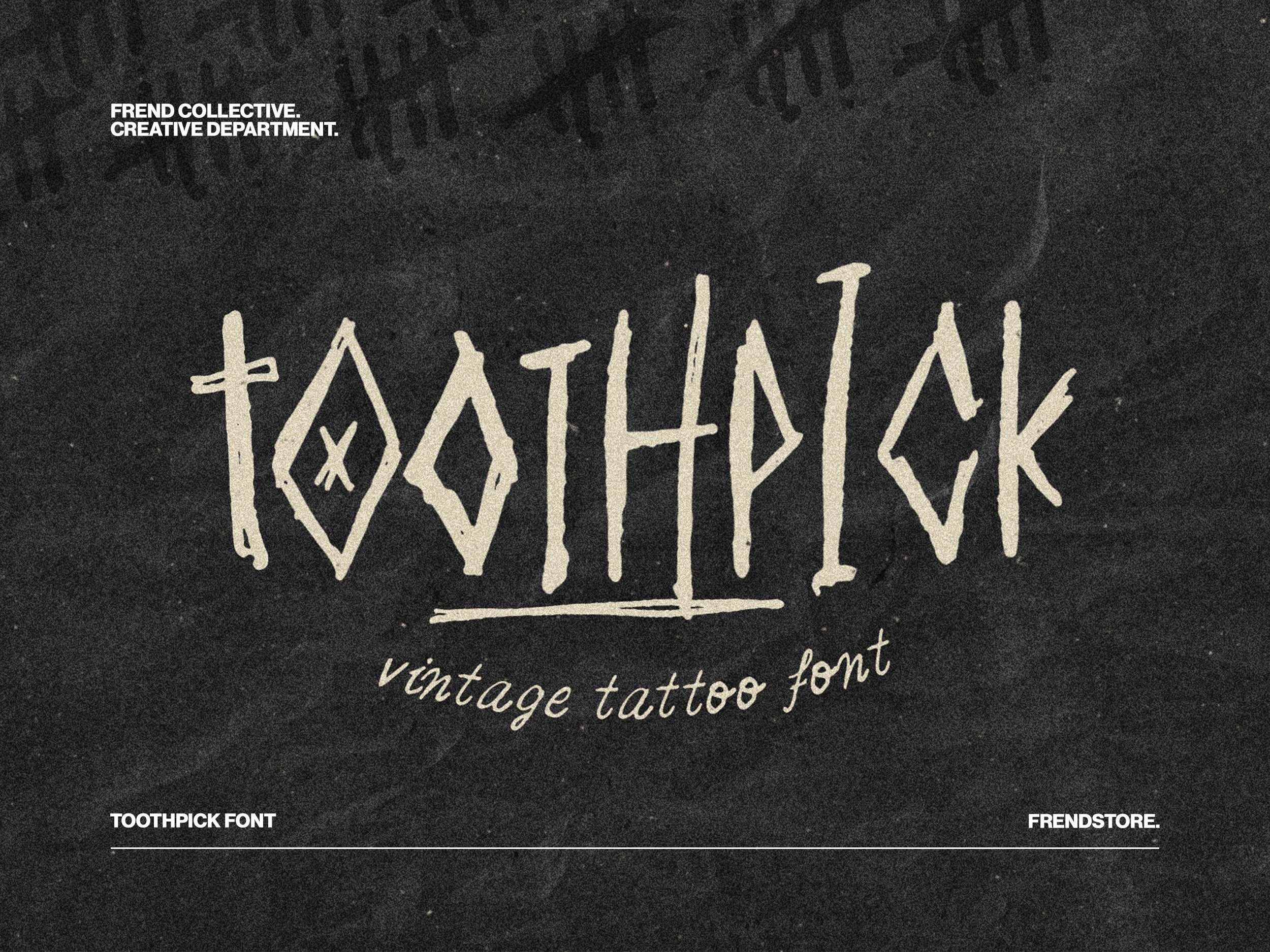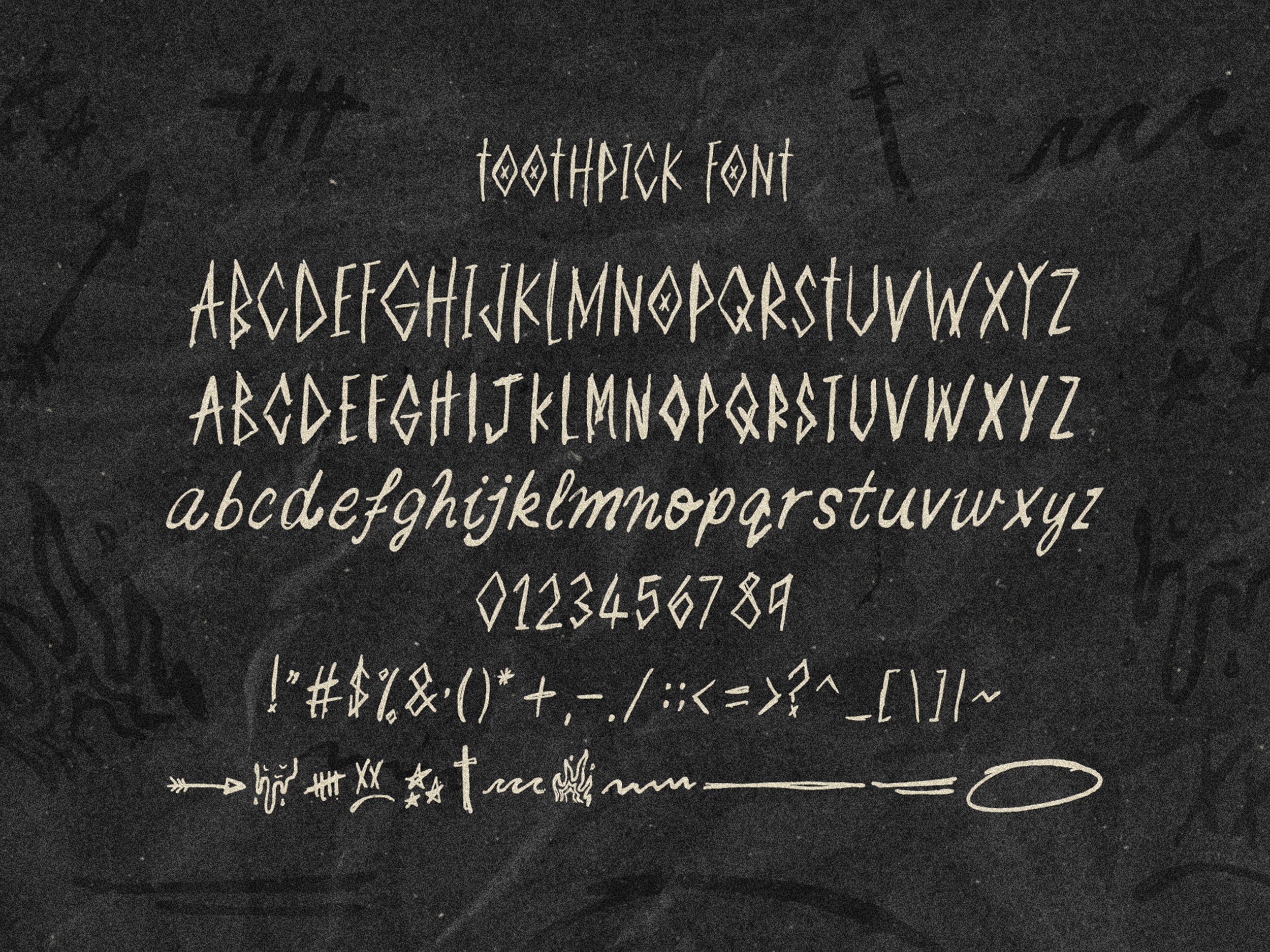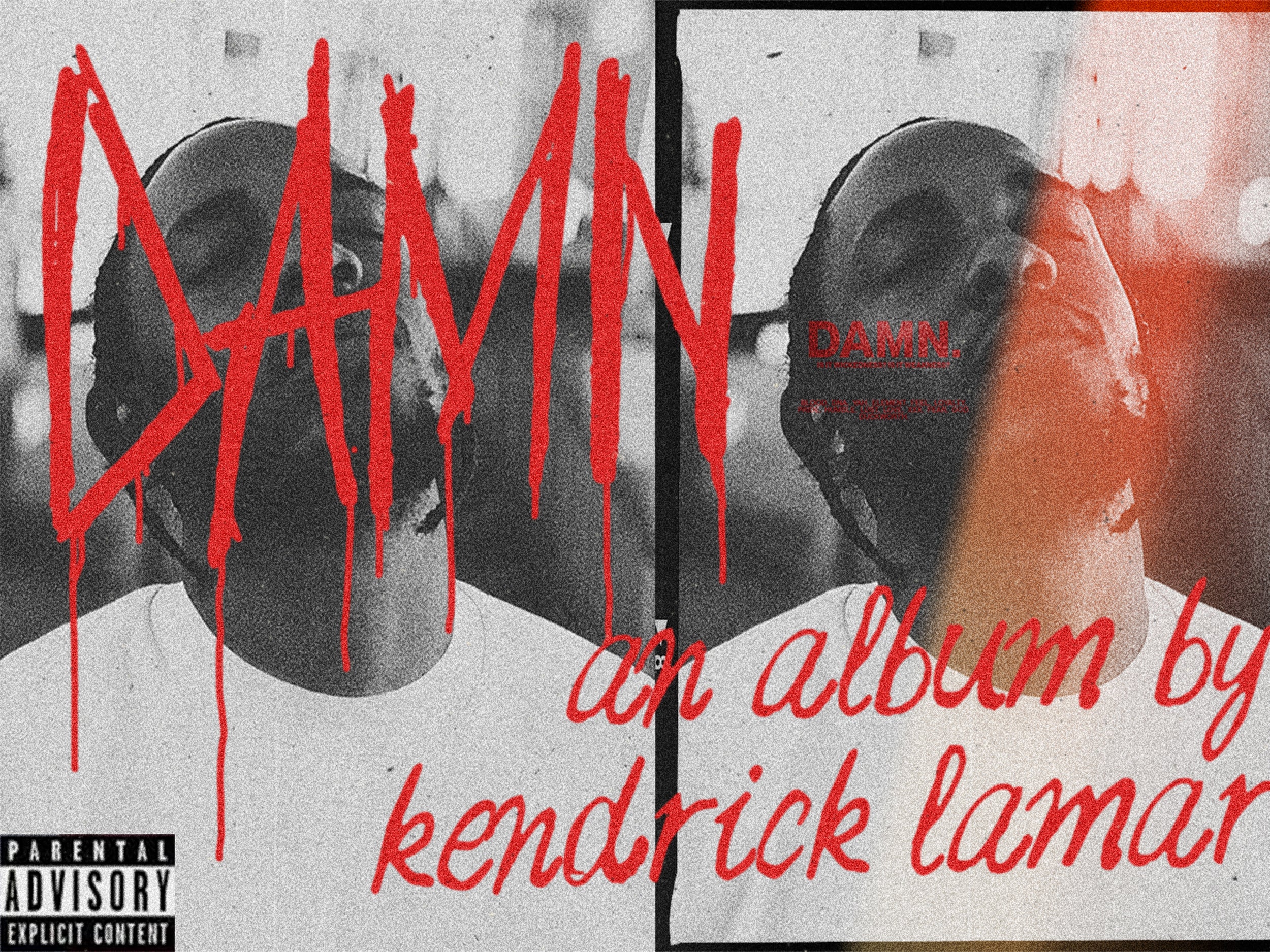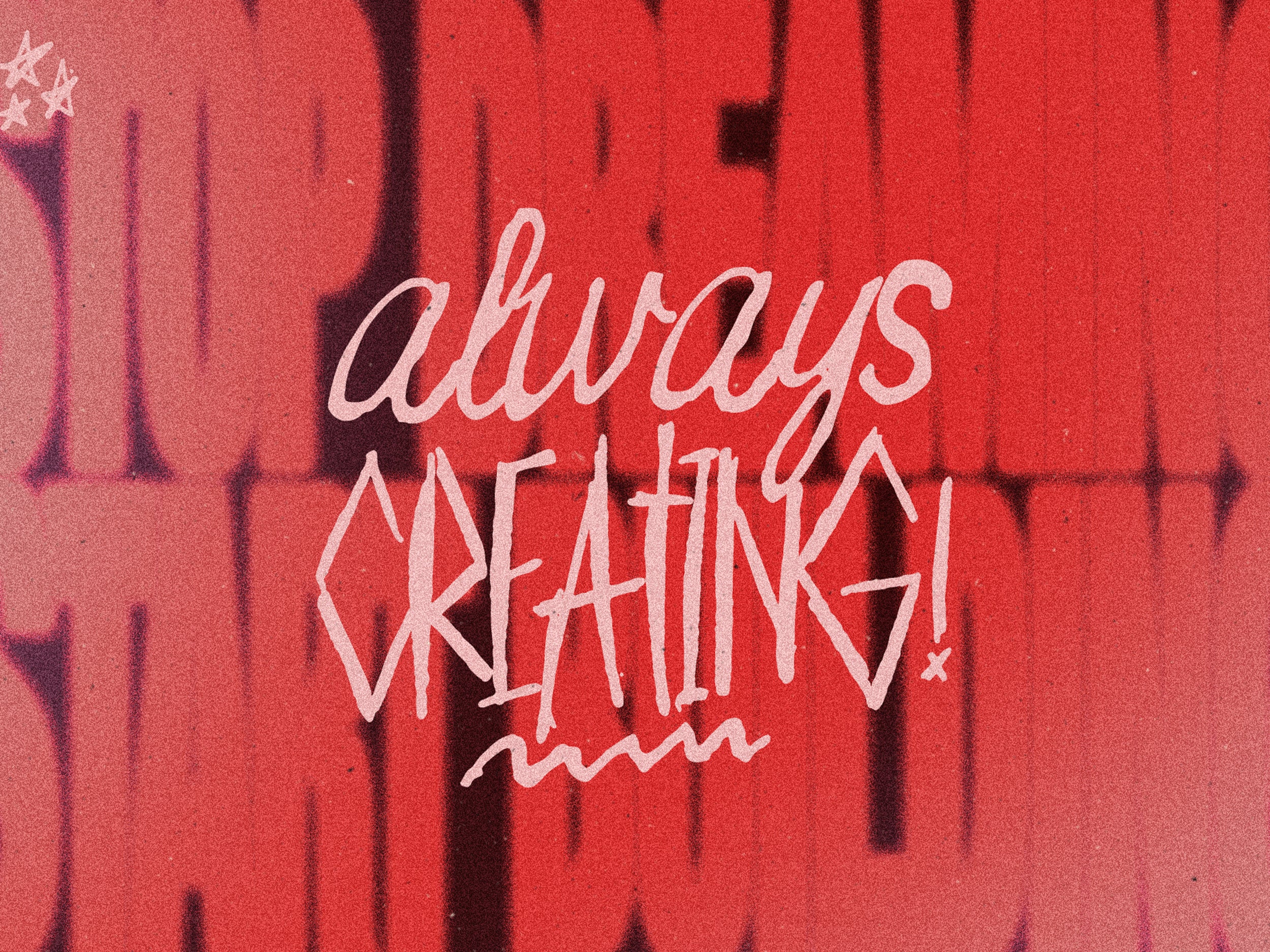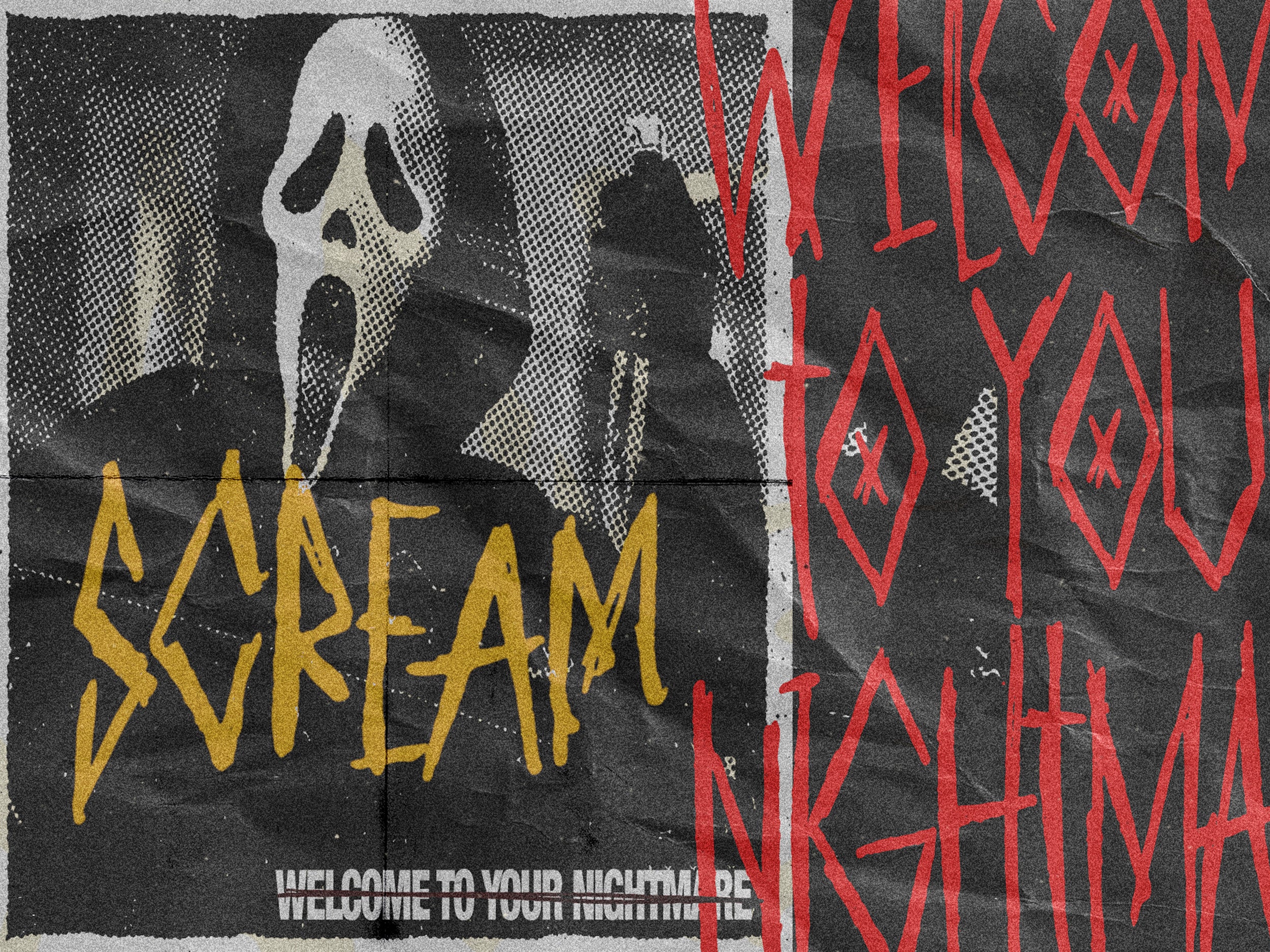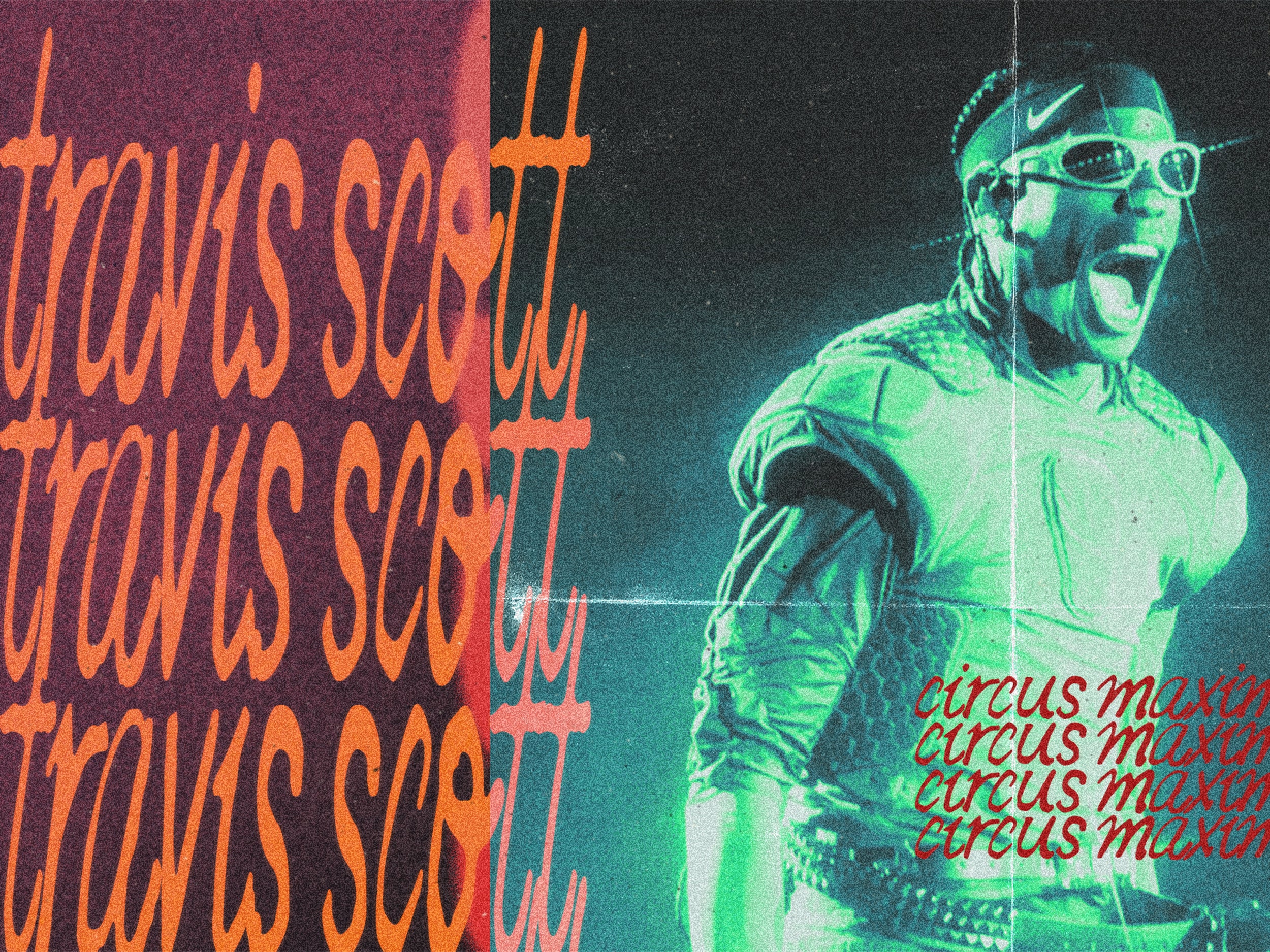
TOOTHPICK FONT
Introducing Toothpick Font.
Toothpick Font is a hand drawn, unique & vintage tattoo inspired font. Toothpick is perfect for all quirky display headers and is versatile with any font! Perfect for all projects.
Features: Upper Case + Lower Case + Upper Case Alt + Numerals + Punctuation.